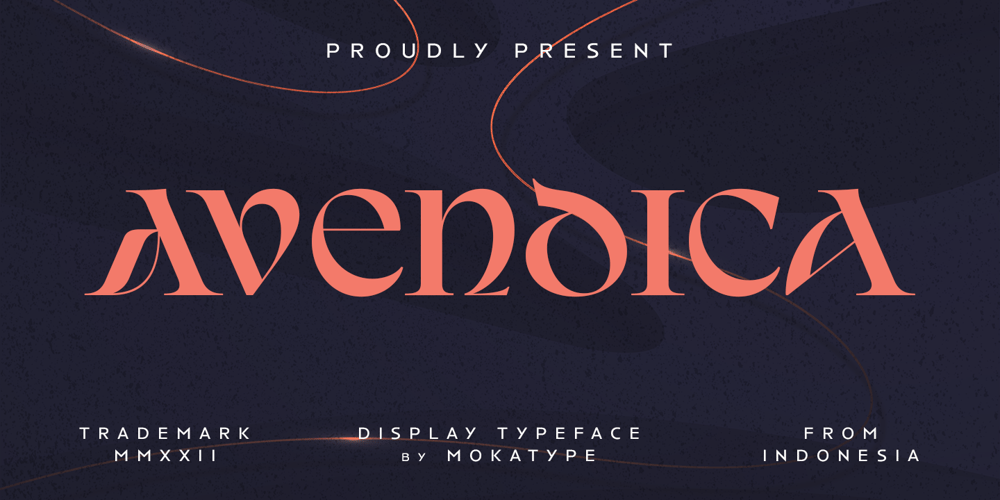
Avendica Font Family was designed by Abdul Malik Wisnu, Rivo Adriansyah and published by Mokatype Studio. Avendica contains 1 styles and family package options. Avendica is an experimental typeface inspired by Celtic Roman font. It’s developed with a modern serif style design so it looks elegant and luxurious. This font is only used in Uppercase form with some different styles between the uppercase and the lowercase. This font is suitable for short-text designs like headlines, logos, brands, and more.Works on PC & Mac, simple installations, accessible in Adobe Illustrator, Adobe Photoshop, Adobe InDesign, and even works on Microsoft Word. PUA Encoded Characters – Fully accessible without additional design software. Fonts include multilingual supportImage used: All photographs/pictures/vectors used in the preview are not included, they are intended for illustration only. Thank You